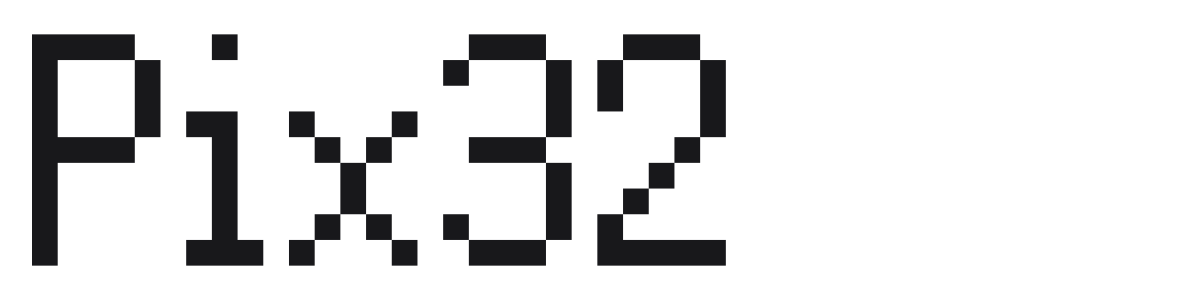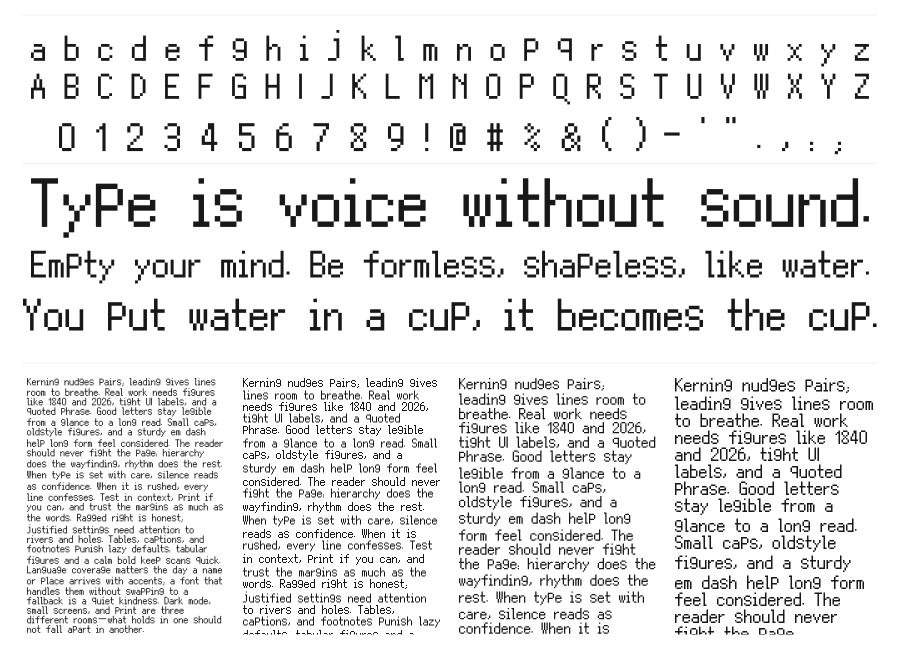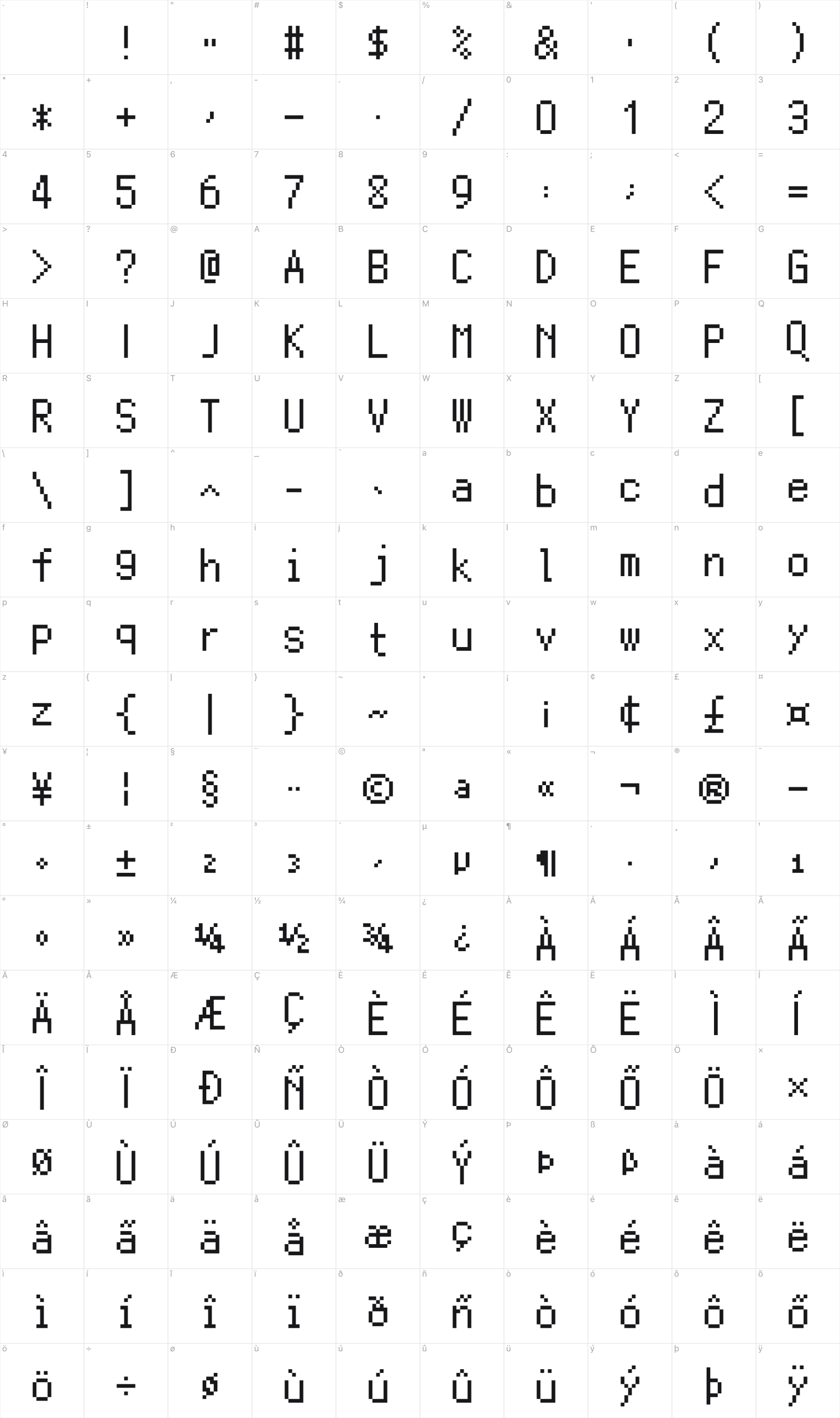
Pix32
by Yu Job
Pix32 is a bitmap pixel font built on a strict square grid, with every stroke assembled from uniform rectangular blocks. It captures the unmistakable look of early home computer and game console text, from DOS terminals to portable handhelds. Clean enough to read at reasonable sizes, characterful enough to carry a retro-digital mood.